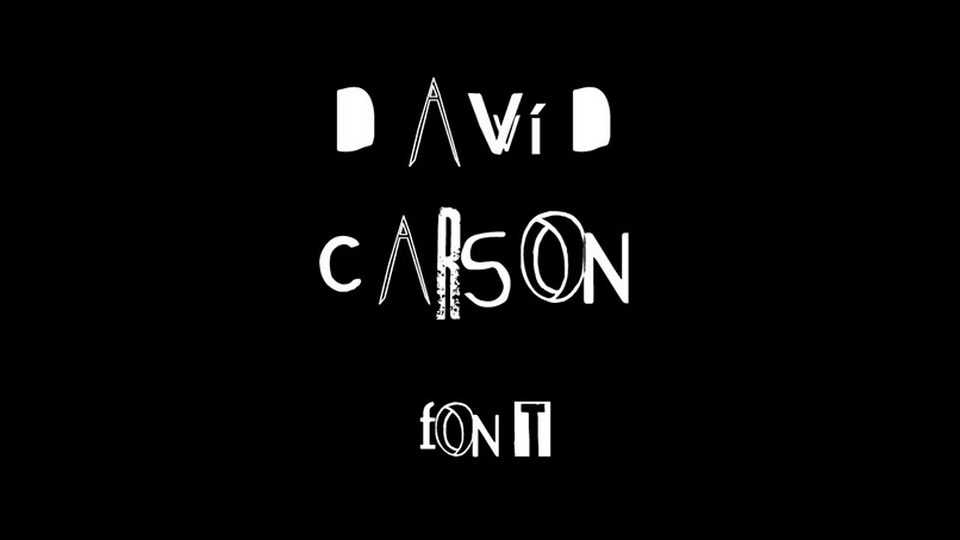
Download David Carson font, is a unique typeface designed from Carson artworks with carefully crafed letters and numbers from different projects.
Designer: Iordanis Passas